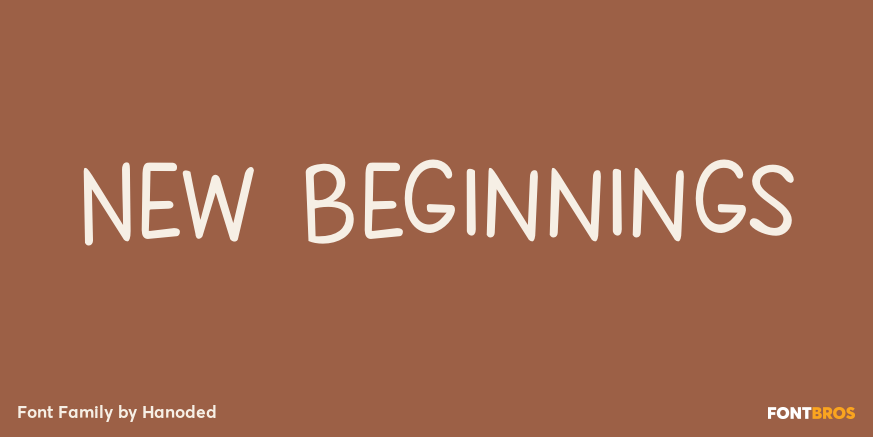
New Beginnings
About New Beginnings
A new year has begun, new resolutions have been made. Fresh ideas are popping up and a new life is about to begin. All in all, I figured New Beginnings was the perfect name for my first font in 2016. It is a very happy, very original typeface. All caps,…